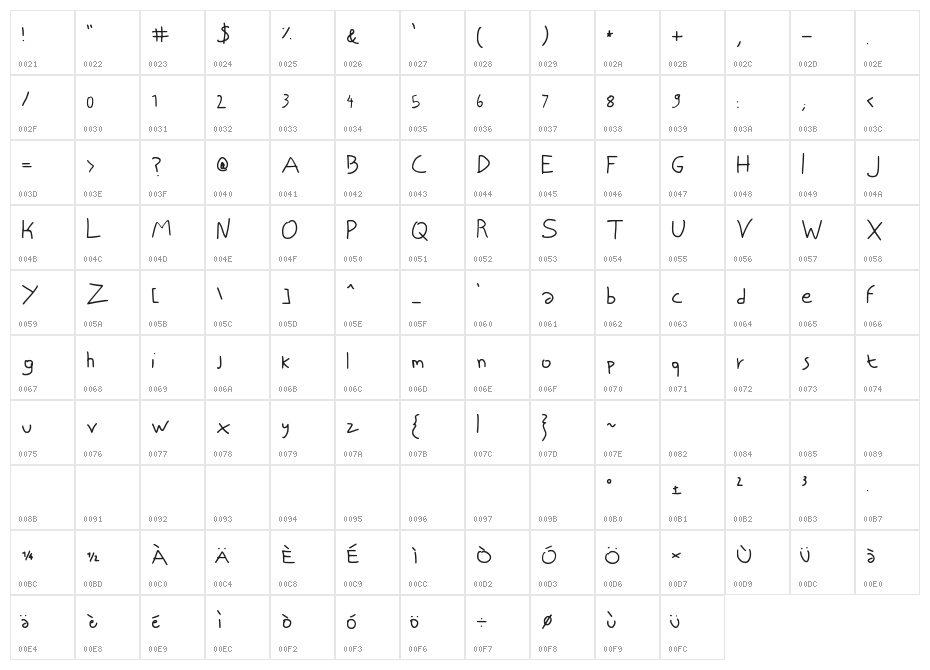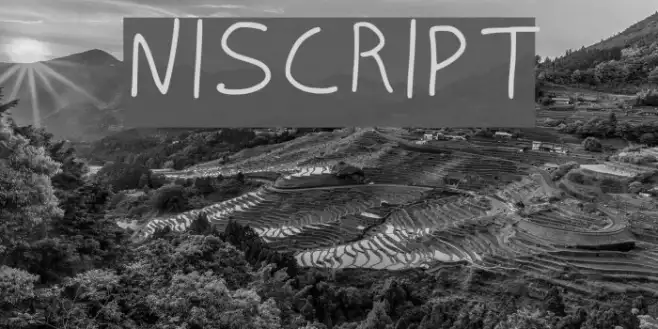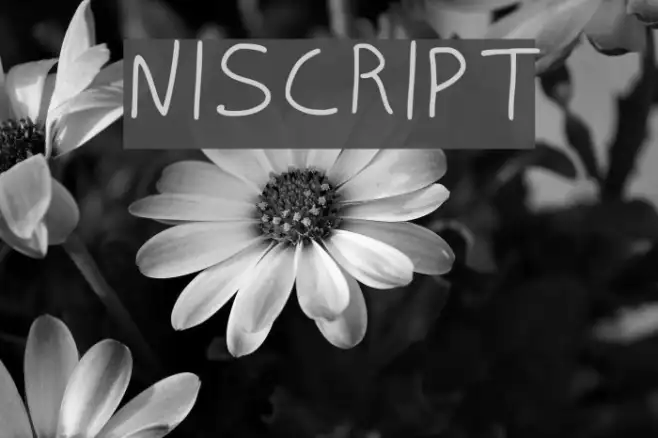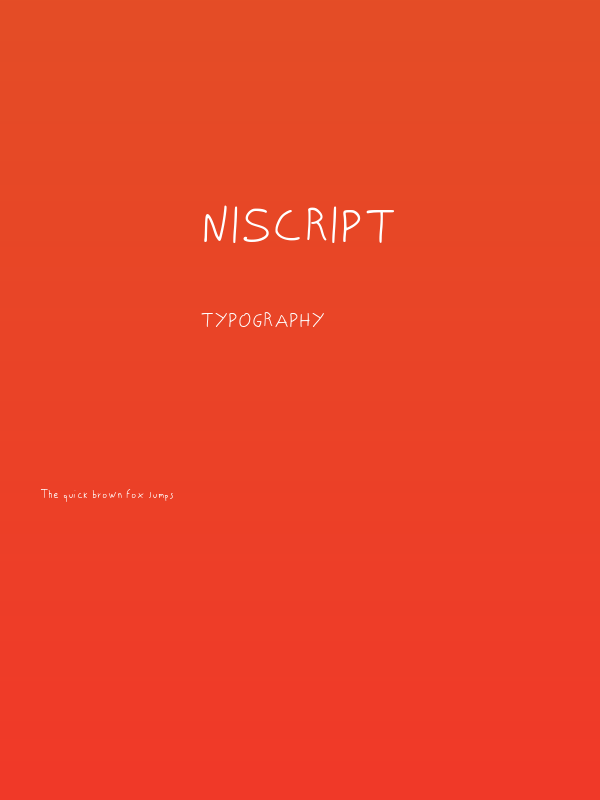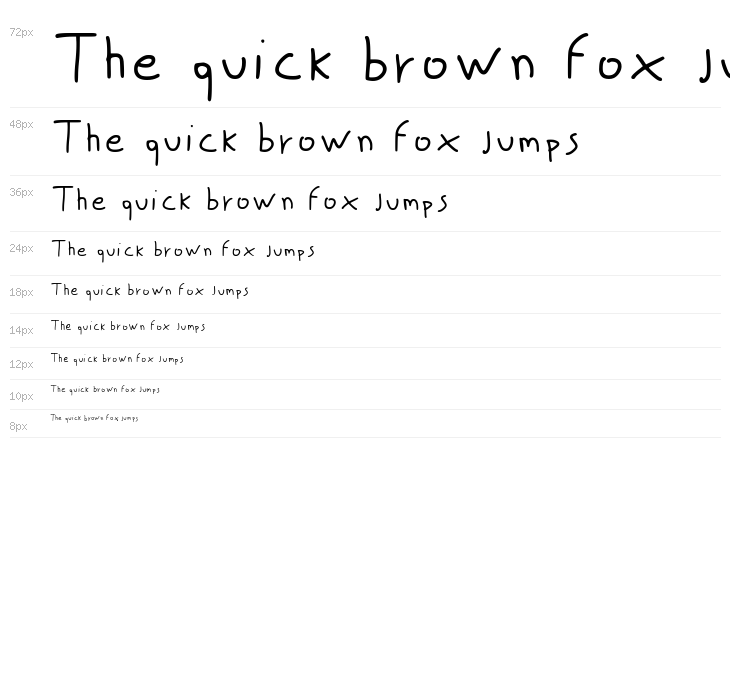
NISCRIPT Font
NISCRIPT Description
This font features a playful and casual handwritten style, characterized by its irregular and slightly uneven strokes. The letters have a natural flow, with a slight tilt that adds to the informal and friendly appearance. The uppercase and lowercase letters are distinct, with the lowercase letters maintaining a consistent height. The numbers and special characters follow the same casual aesthetic, making the font versatile for various informal applications. Its overall appearance is approachable and relaxed, suitable for projects that aim to convey a personal touch.
Overall StyleCasual
Use CaseHeadlines, Informal text, Personal projects
Proposed ProjectsIdeal for greeting cards, personal blogs, children's books, and informal branding.